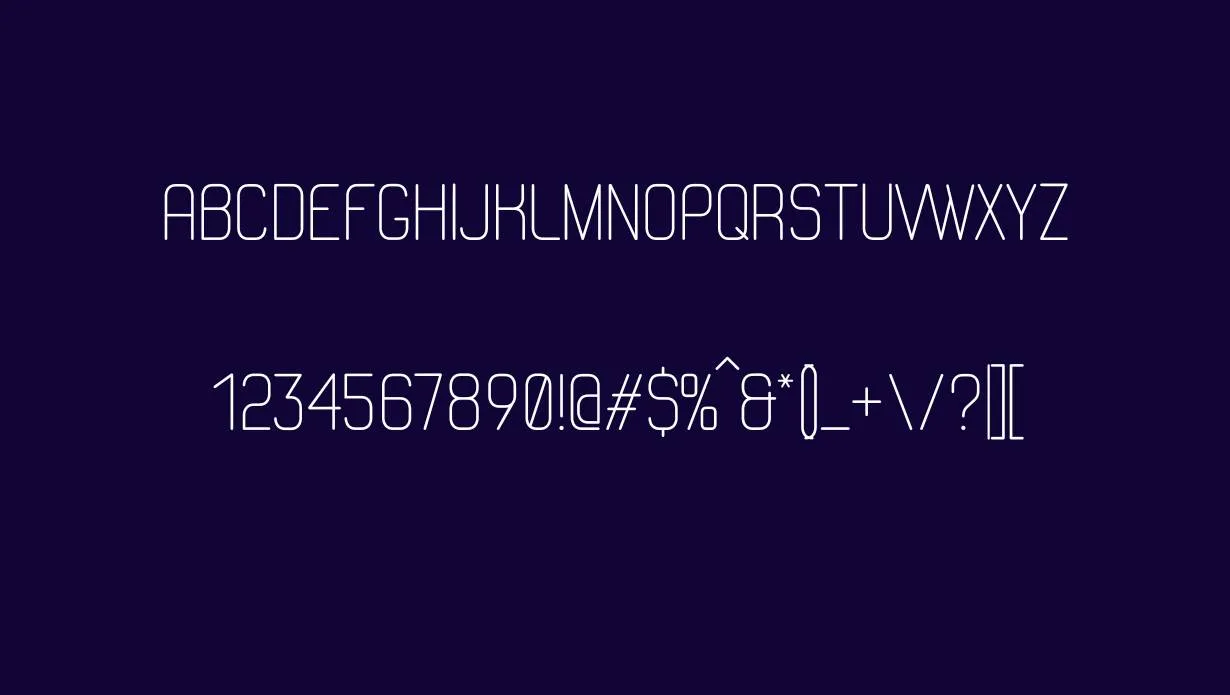
AC Line font carries a sharp and contemporary aesthetic, commonly used in tech designs, logos, or sleek posters.
The font’s clean lines and modern style add a sense of precision and up-to-date fashion to the text, making it an ideal choice for designs aiming for a bold and cutting-edge appearance. By using the claire hand font alongside this typeface, you can achieve remarkable displays.
| Name | AC Line Font |
| Designer | Anna Churkina |